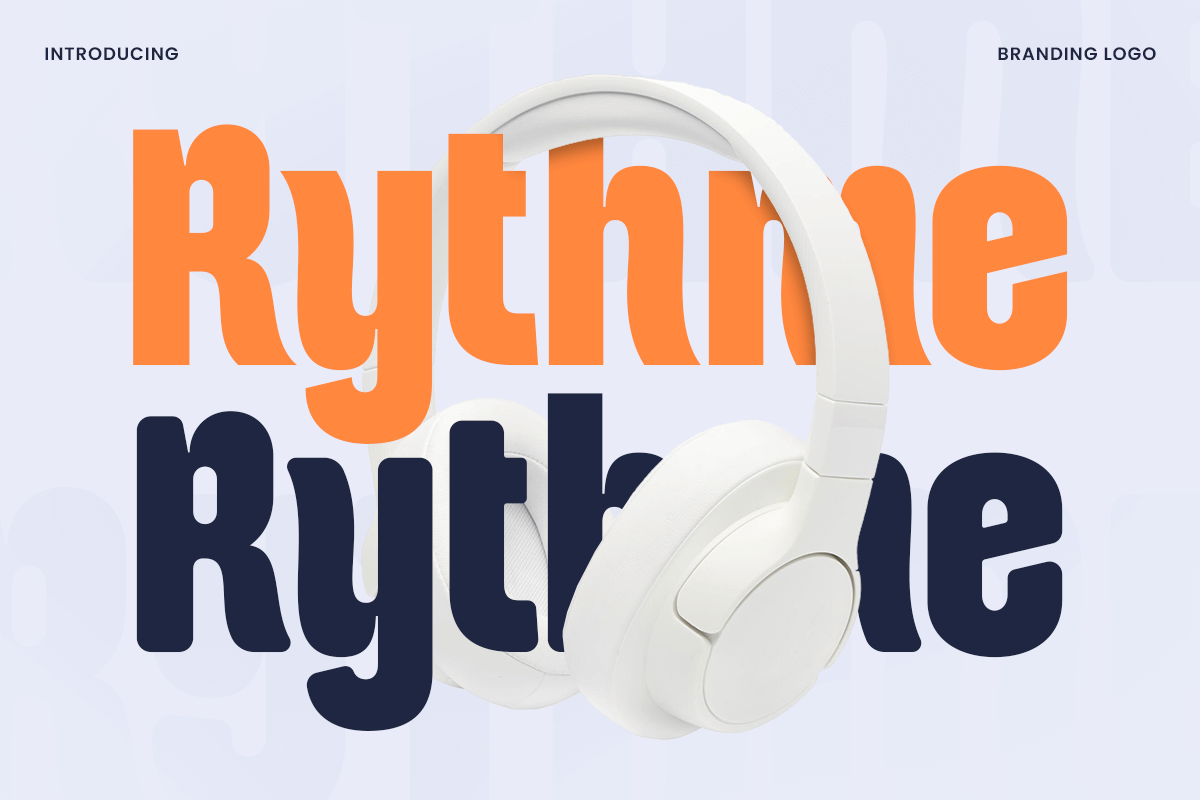
Rythme
-Rounded Condensed Branding Logo FontRythme is a condensed font crafted for modern branding and logo design. Its sleek and streamlined characters are perfect for creating a strong visual identity. Whether you're designing for a corporate brand or a creative project, Rythme offers the versatility and elegance needed to make your work stand out.
Born from a passion for minimalistic design, Rythme blends form and function seamlessly. The font's condensed style allows you to maximize space without sacrificing readability, making it ideal for logos, headlines, and branding materials. Rythme's clean lines and unique characteristics give it a distinctive edge, while still maintaining a professional appearance.
Rythme is available in both normal and rounded styles, giving you the flexibility to match your design's tone and mood. With full punctuation, numbers, and symbols, as well as multilingual support, Rythme is a comprehensive solution for any designer looking to create impactful and cohesive branding.
Rythme Branding Logo Font Features:
Unique Characters Ready
Ready with Normal and Rounded Style